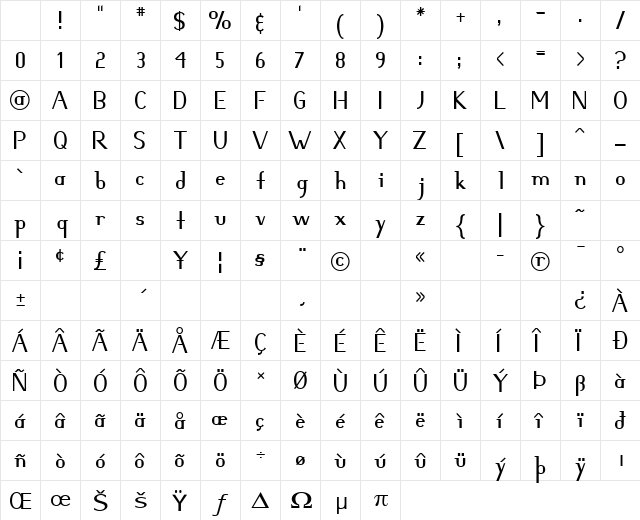
Complete Hellobello Regular glyph index. Displaying only characters natively supported by Hellobello Regular font.
Hellobello is a composed and adaptable typeface that performs quietly and consistently across a wide range of design contexts.